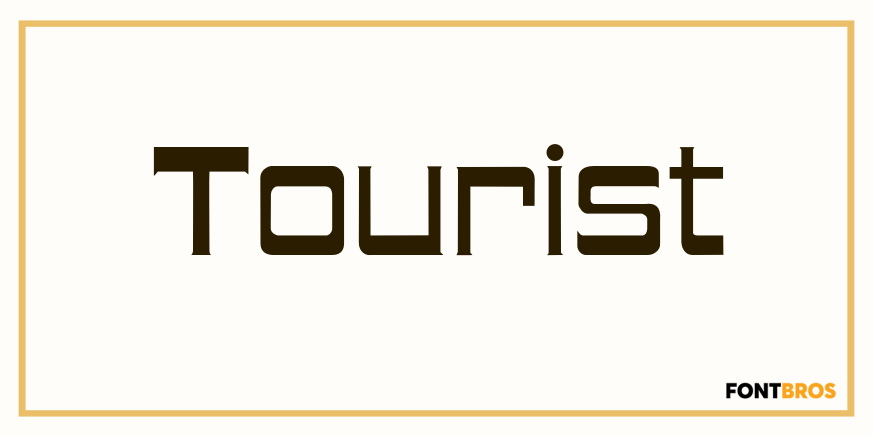
Tourist
Font Family by Solotype
MacKeller, Smiths and Jordan had a font called Giraffe Wide which we liked, but like many Victorian display fonts it had no lowercase.
We fixed that!